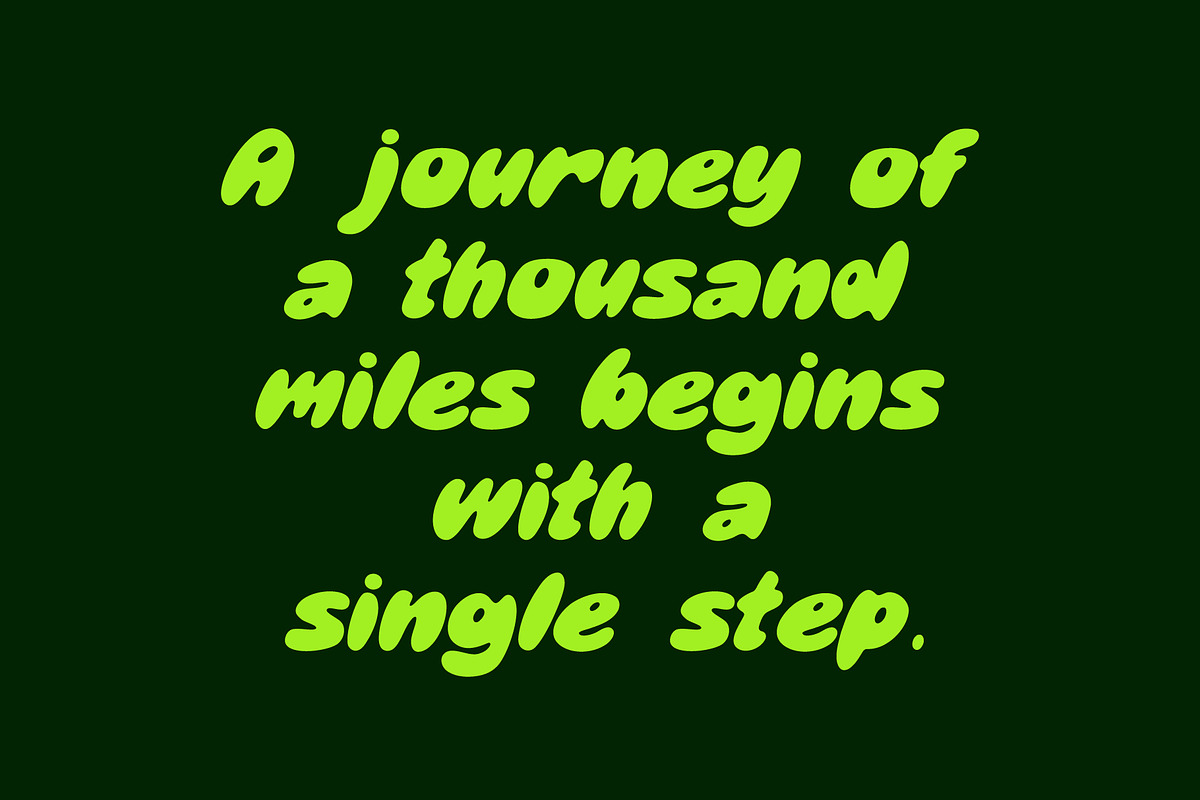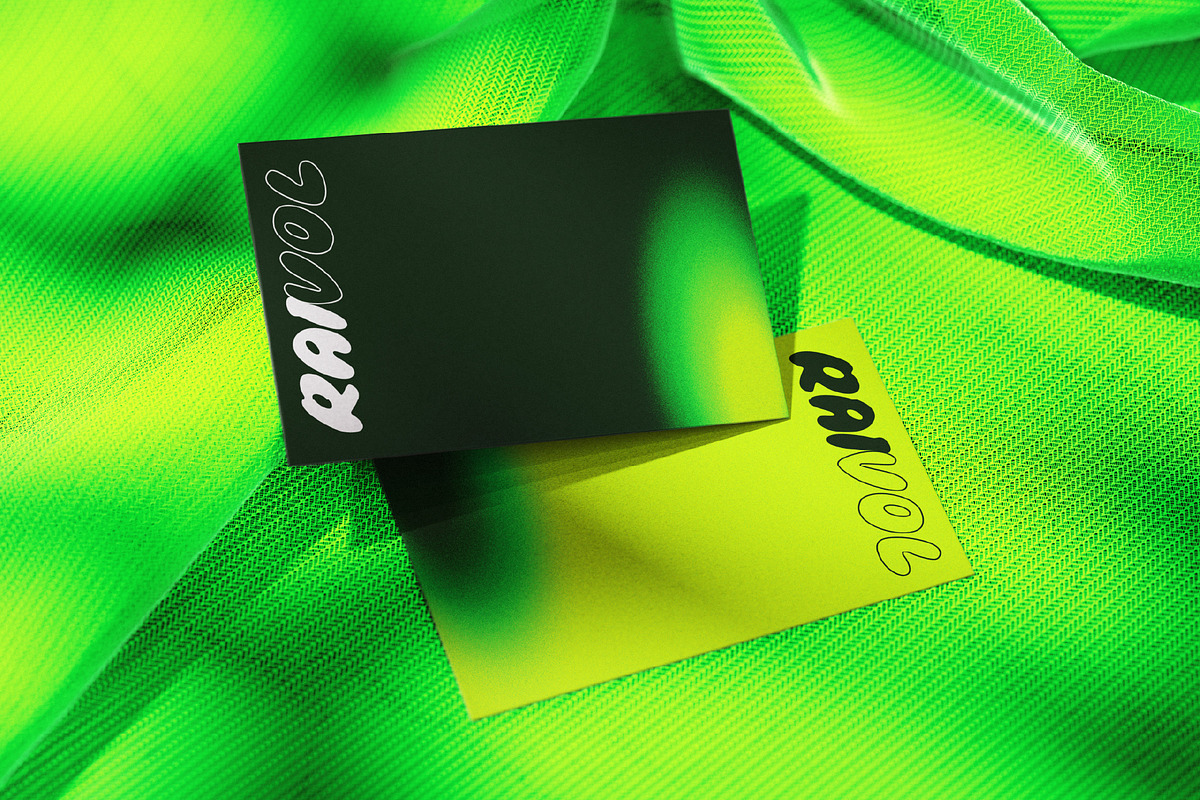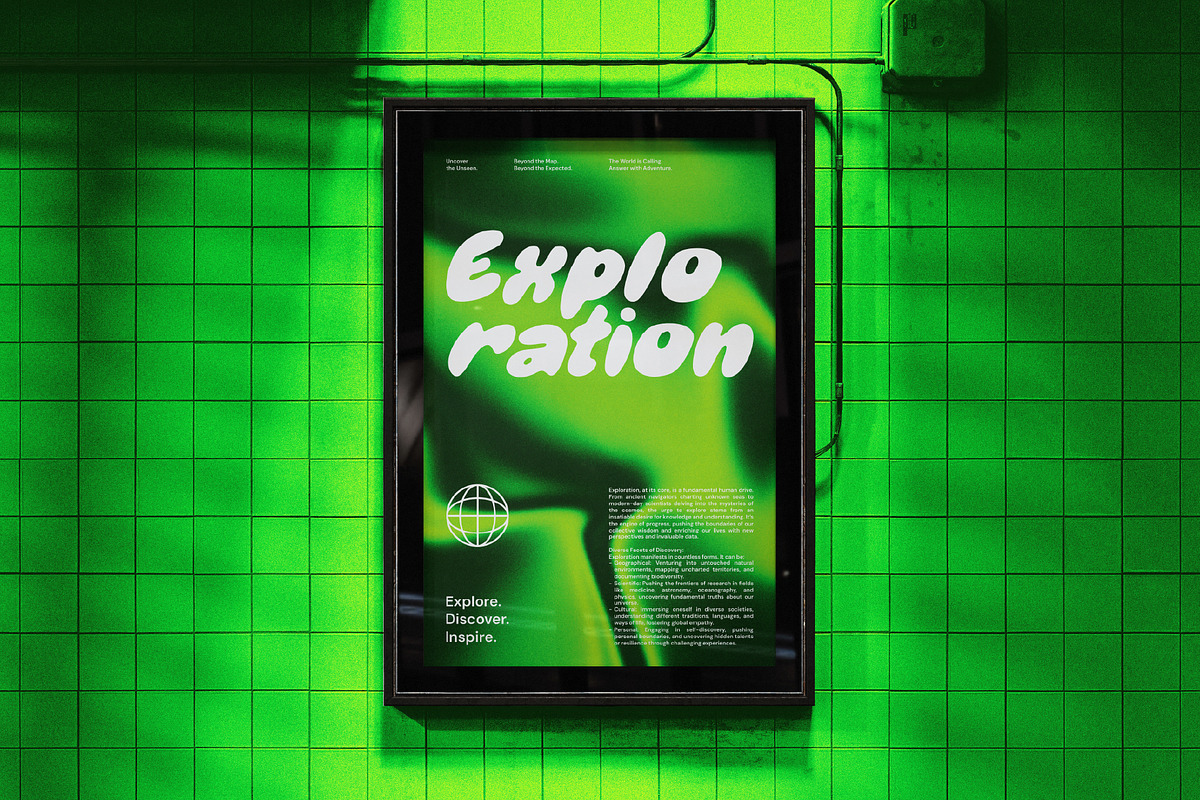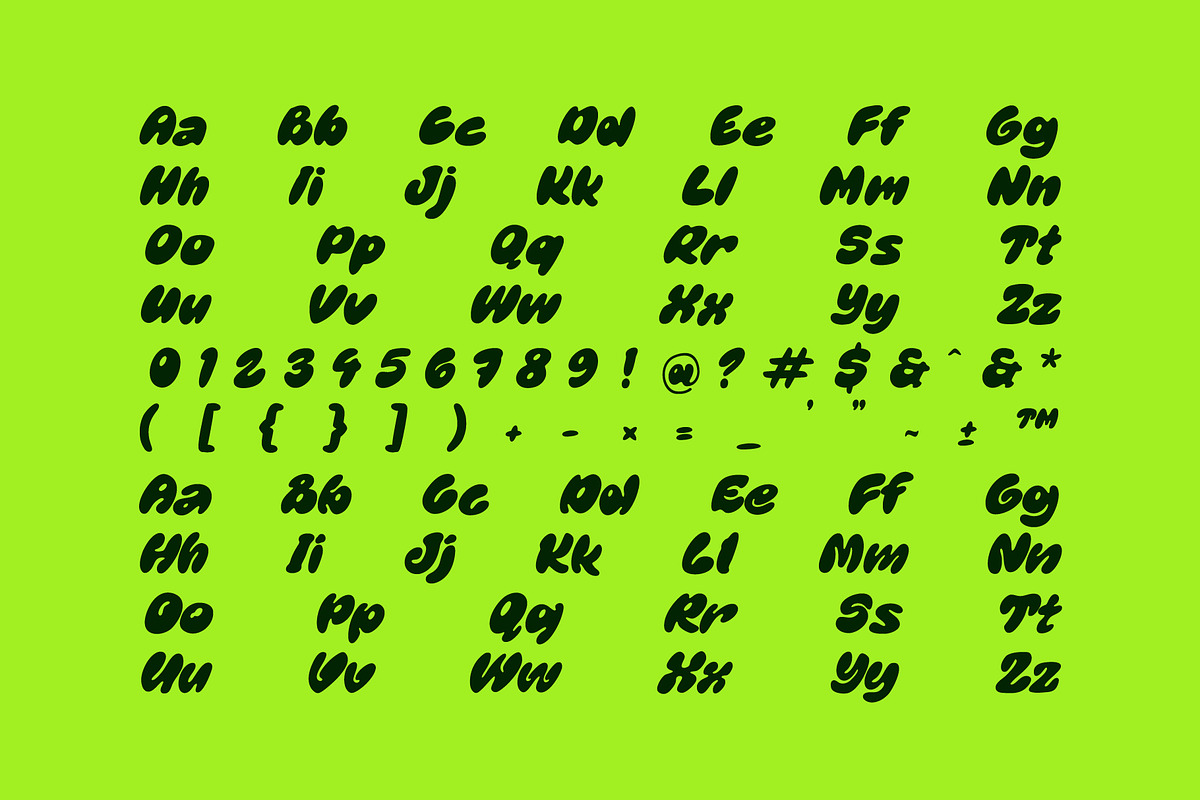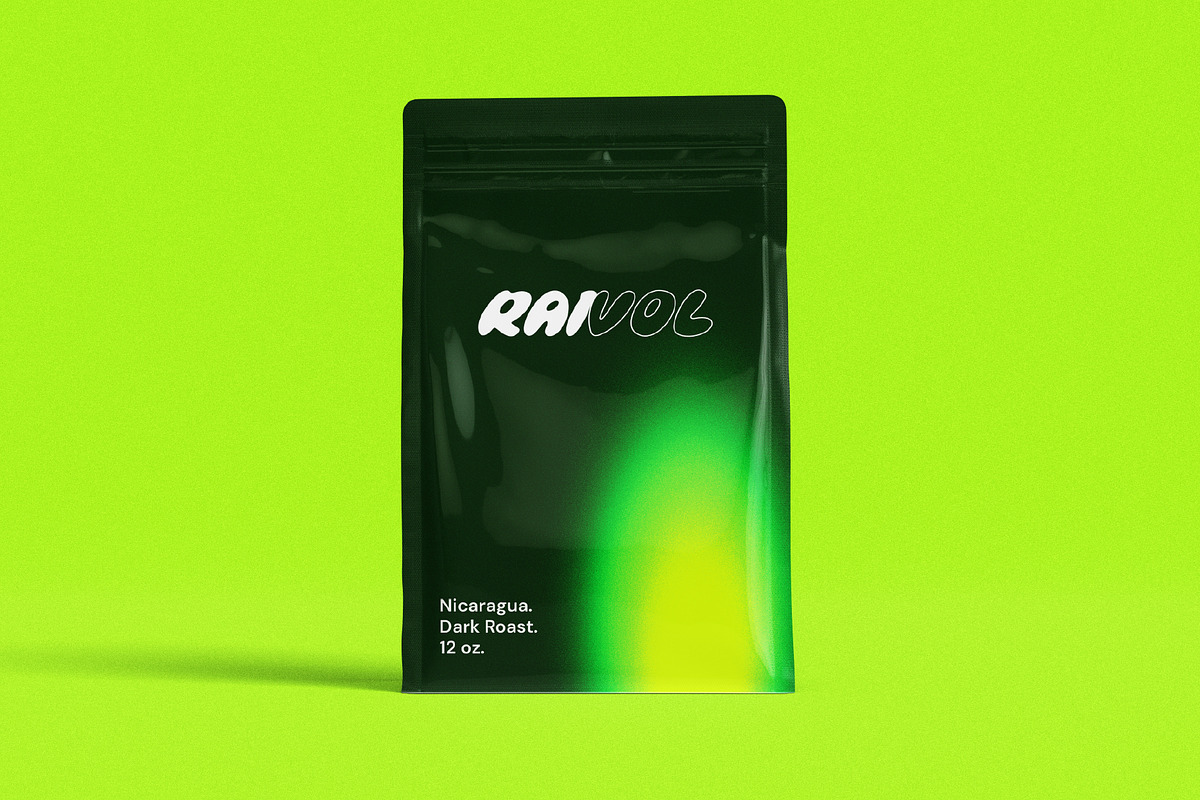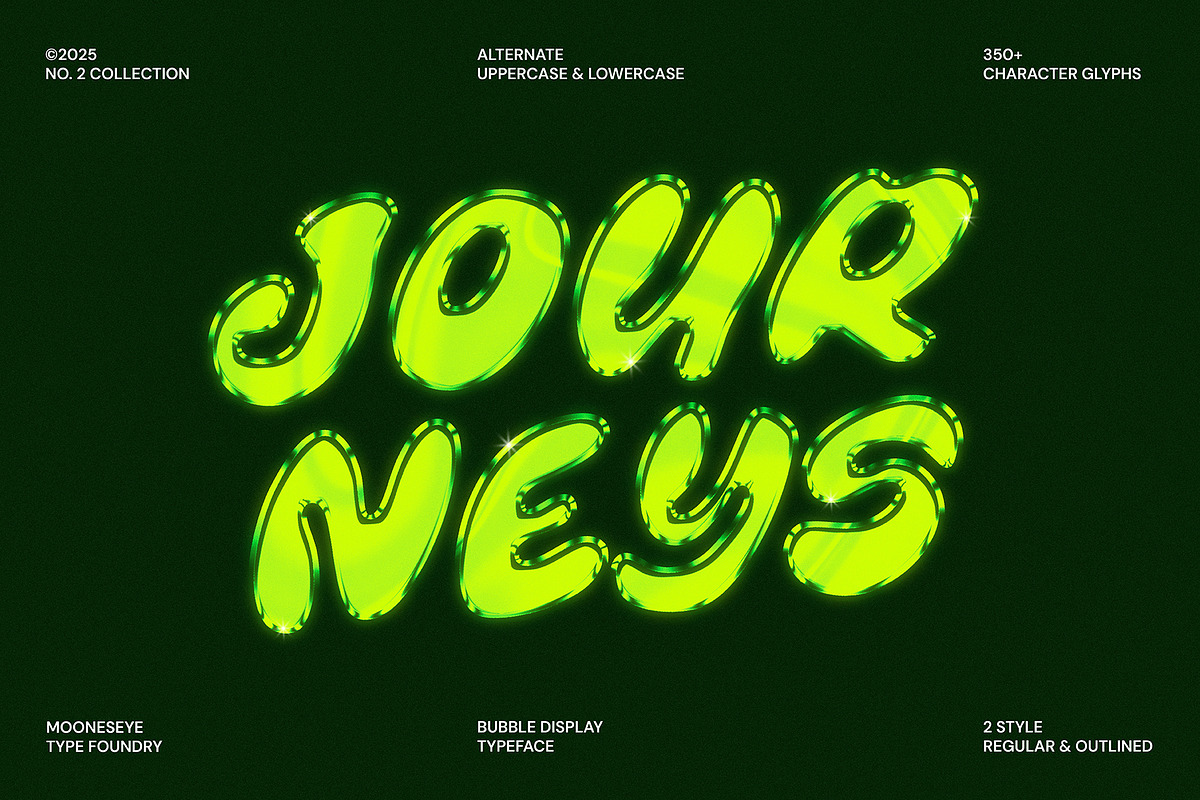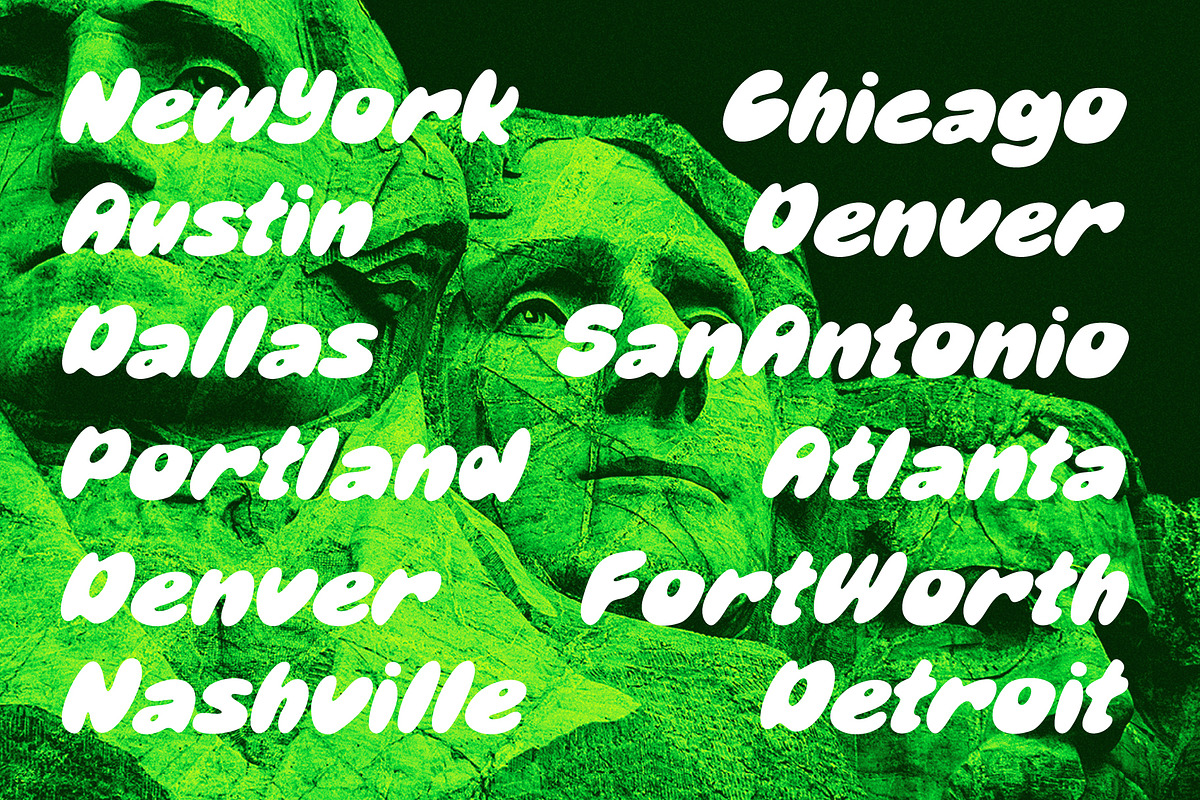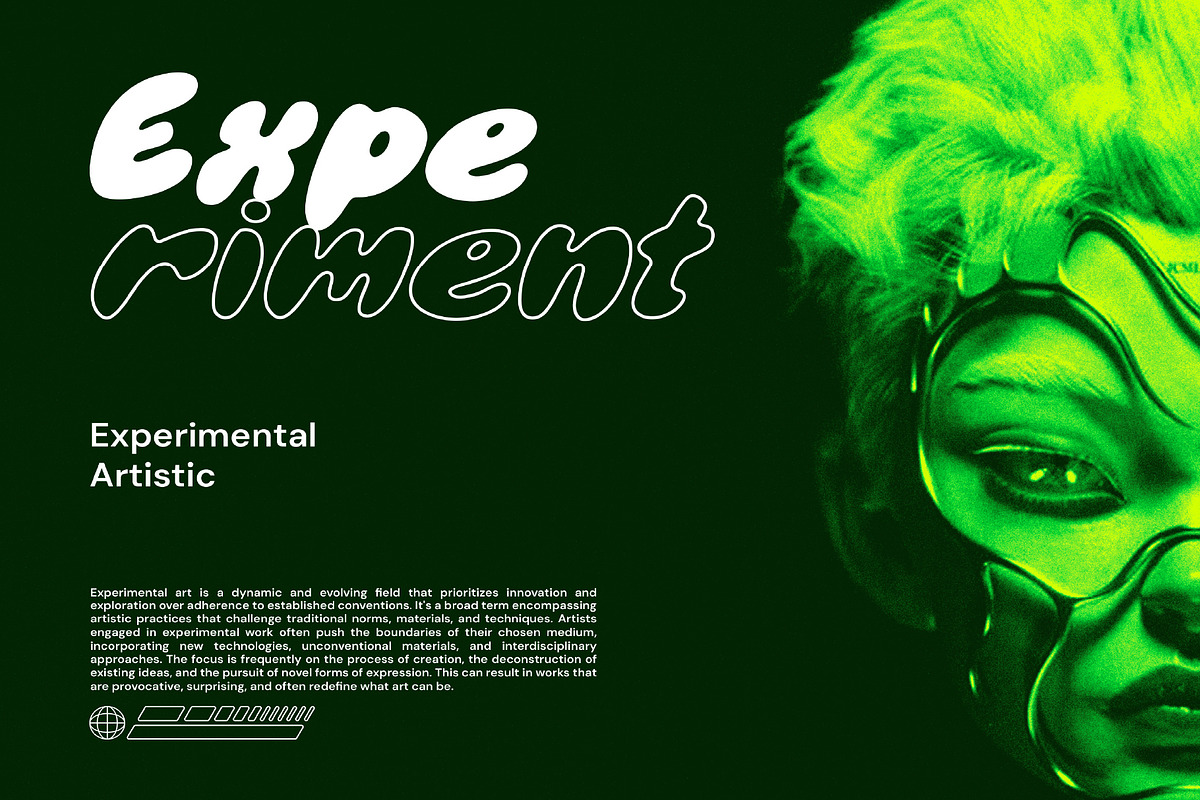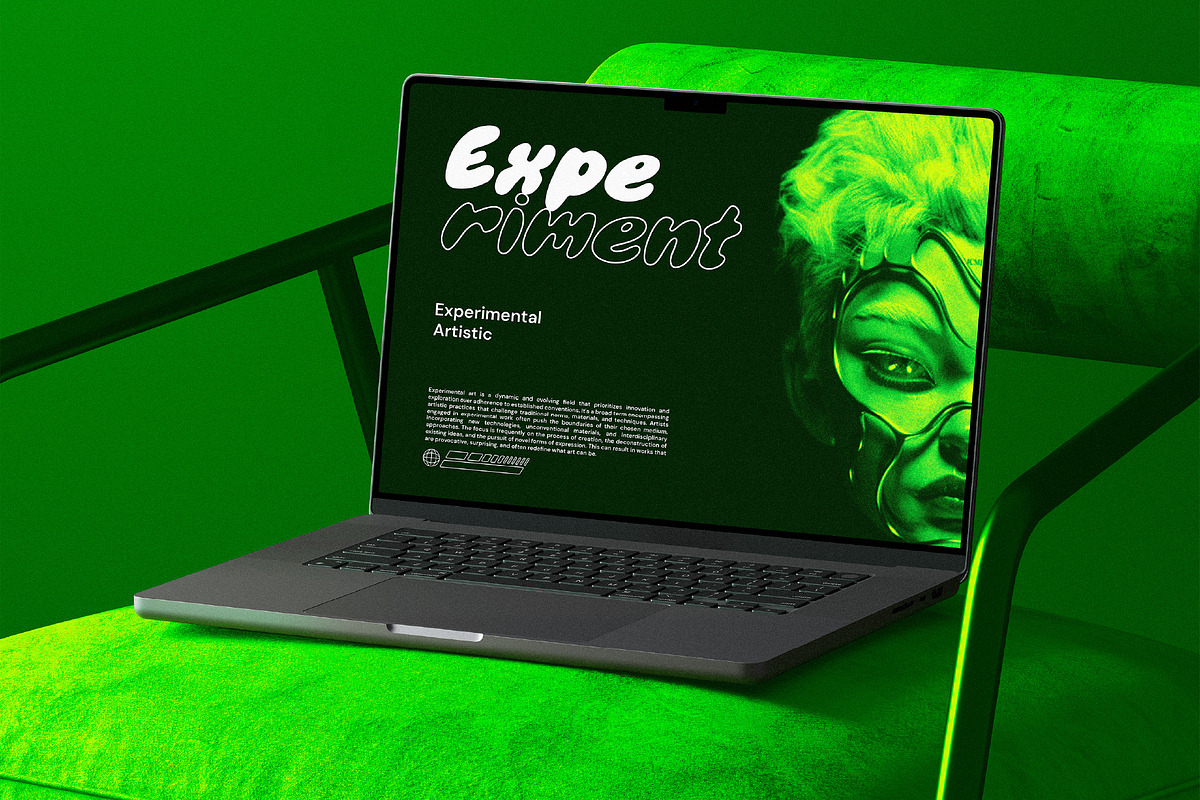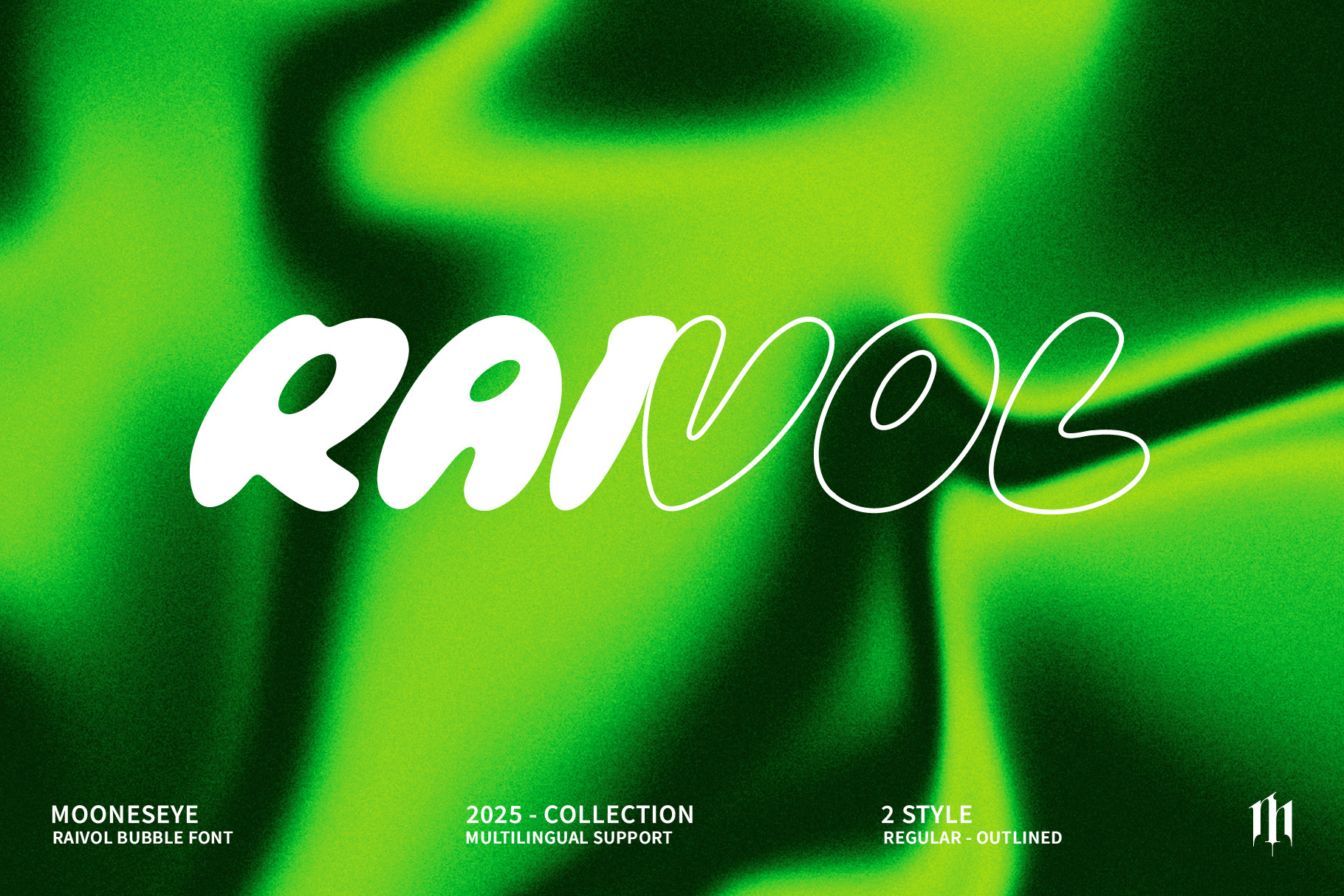
Raivol - Bubble Display Font
Unleash your creativity with Raivol, the playful bubble display font that instantly adds a burst of fun and personality to any project! Imagine your designs popping with unique charm, capturing attention effortlessly.
Raivol is more than just a font; it's a creative playground. Its bouncy, rounded letters and subtle retro vibes make it perfect for making a bold, memorable statement. Whether you're crafting eye-catching social media graphics, designing a standout logo, or creating charming product packaging, Raivol will infuse your work with a modern, trendy appeal that truly shines.
Key Features You'll Love:
- Alternate Uppercase & Lowercase: Mix and match for endless creative variations.
- Two Styles Included: Get both the bold Regular and artistic Outlined versions.
- 350+ Character Glyphs: Comprehensive set for all your design needs.
- Punctuation & Numbers: Fully equipped for complete design versatility.
Suitable For
- Social media posts & stories (Instagram, TikTok)
- Brand logos & packaging designs (e.g., coffee bags, snack brands)
- T-shirt designs & merchandise
- Children's book titles & illustrations
- Party invitations & event posters
- YouTube thumbnails & video titles
- Game titles & UI elements